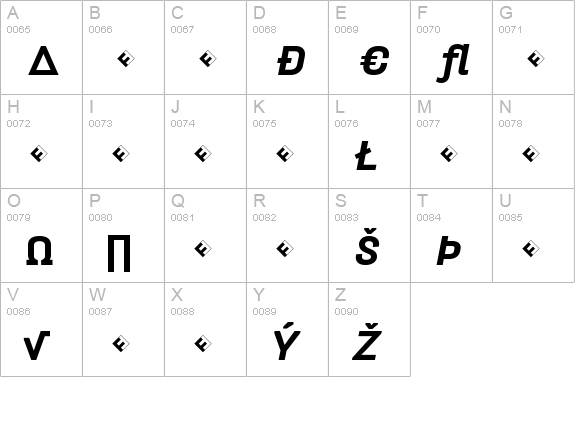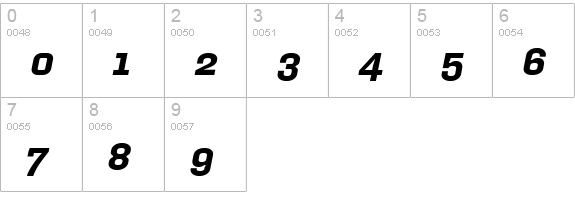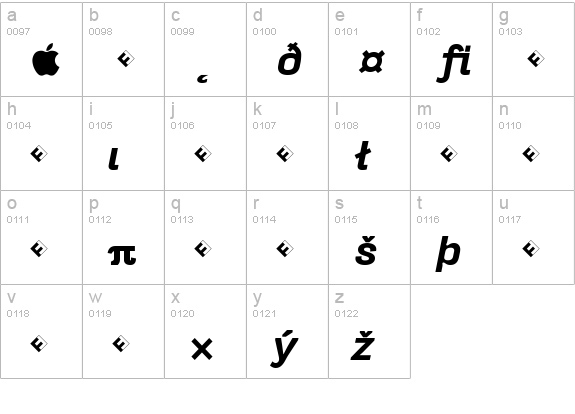
HydraText-BlackItalicExpert font is a stunning and sophisticated typeface that exudes elegance and modernity. Its sleek design and bold strokes make it perfect for creating eye-catching headings and titles. The italic style adds a touch of flair and sophistication to any design project. Best of all, HydraText-BlackItalicExpert font is available for free download at FontsMarket.com. Whether you're working on a professional project or simply looking to add a touch of style to your creations, this font is sure to impress. Don't miss out on the opportunity to enhance your designs with this exquisite typeface. Download HydraText-BlackItalicExpert font today and take your designs to the next level!